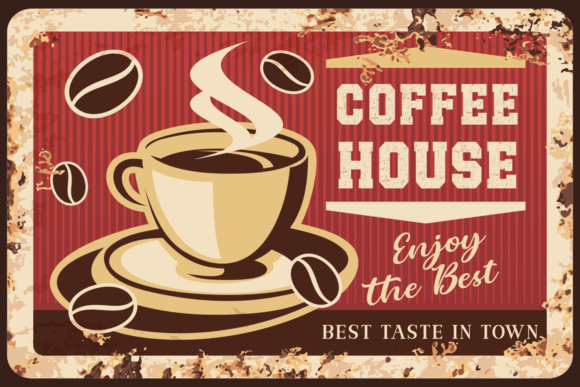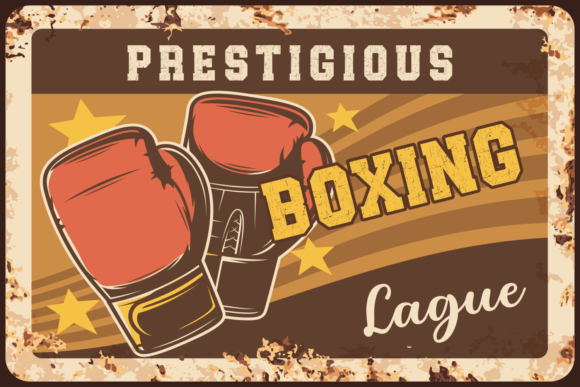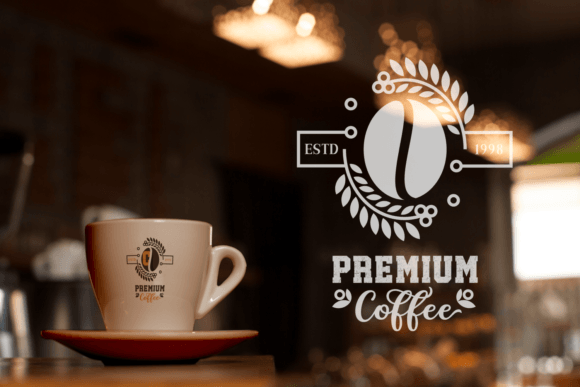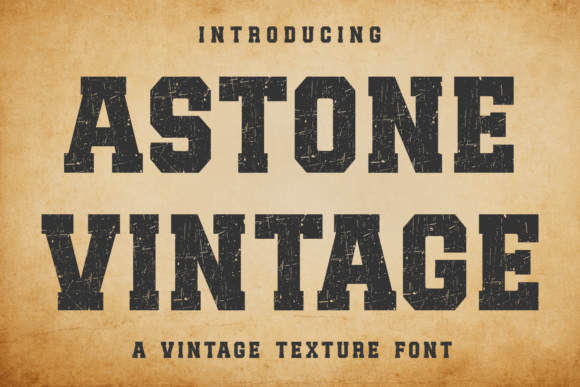
Astone Vintage Font: Elevate Your Designs with a Touch of Nostalgia
In the world of design, fonts play a crucial role in conveying the tone and aesthetic of a project. For designers and crafters looking to add a touch of nostalgia to their work, Astone Vintage Font is an excellent choice. This vintage and grunge slab serif font is designed to bring a sense of retro charm to any design, making it perfect for projects that require a unique and eye-catching look.
The Characteristics of Astone Vintage Font
Astone Vintage Font boasts a distinctive appearance that sets it apart from other fonts. Its rough edges and worn-out texture give it a grungy feel that’s reminiscent of vintage designs from the past. The font features bold and strong lettering, making it ideal for headlines, titles, and other design elements that require a strong visual impact.
Perfect for Vintage and Grunge Aesthetics
Astone Vintage Font is specifically designed for designers who want to create designs with a vintage or grunge aesthetic. The font’s rough, distressed look is perfect for projects that require a retro vibe, such as:
- Poster designs
- Brochures
- Logos
- Packaging designs
Why Choose Astone Vintage Font?
There are many fonts available that claim to offer a vintage or grunge look, but Astone Vintage Font stands out from the rest. Here are just a few reasons why designers and crafters love this font:
- Unique character: Astone Vintage Font has a distinctive look that’s sure to make your designs stand out.
- High-quality design: The font is carefully crafted to ensure that it’s legible and visually appealing.
- Versatility: Astone Vintage Font can be used for a wide range of design projects, from posters to logos.
Tips for Using Astone Vintage Font
To get the most out of Astone Vintage Font, here are a few tips to keep in mind:
- Use it sparingly: Because of its bold and distressed look, Astone Vintage Font can be overwhelming if overused. Use it for headlines and titles, and pair it with a simpler font for body text.
- Experiment with colors: Astone Vintage Font looks great in a range of colors, from bold brights to muted earth tones. Experiment with different colors to find the perfect look for your design.
- Add texture and effects: To enhance the vintage look of Astone Vintage Font, try adding texture or effects such as grunge, noise, or distressing.
Astone Vintage Font is a powerful tool for designers and crafters looking to add a touch of nostalgia to their work. With its bold and strong lettering, rough edges, and worn-out appearance, this font is perfect for creating designs with a vintage or grunge aesthetic. Whether you’re working on a poster, brochure, logo, or social media graphic, Astone Vintage Font is sure to elevate your design and give it a unique character.